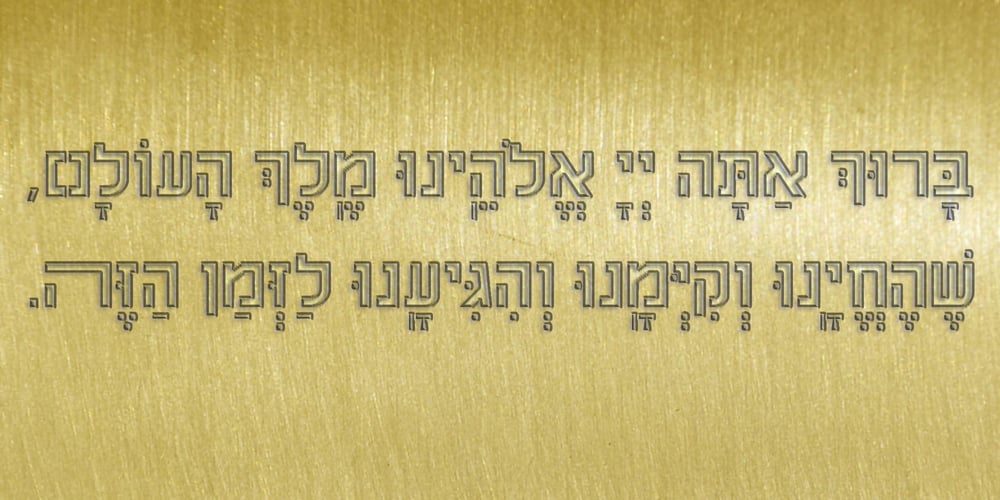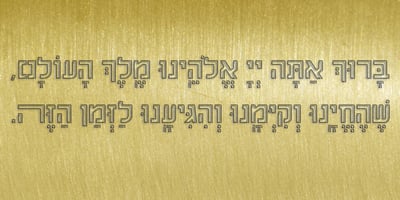
Hebrew Stencil Font Family was designed by Sami Artur Mandelbaum and published by Samtype. Hebrew Stencil contains 1 styles and family package options. This is a modern Sans Serif font.There are 12 lettersThis font is for logos, covers and small texts and children booksThis font has the modern Hebrew punctuation: Shevana, Kamatz Katan, Dagesh Hazak, and Cholam Chaser.